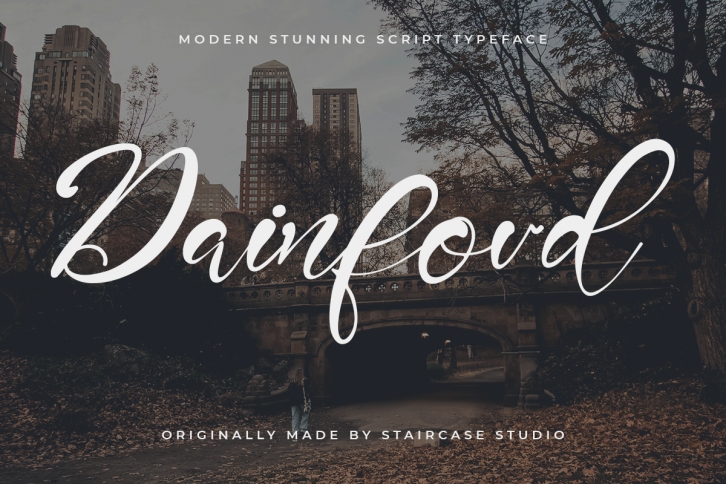
Dainford is a flowing and delicate script font. This font was particularly crafted for those who need a beautiful and refreshing look to their designs.